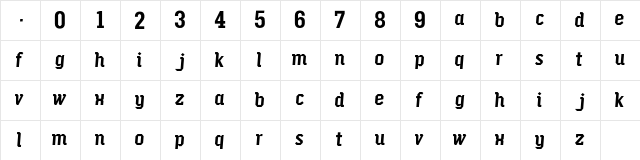
Puma World Cup 2010 Regular
Copyright: Based on the uniform lettering created by Puma for the 2010 World Cup. Fonted by Character from a vector alphabet provided by 'pirlofan'
Design Context for Puma World Cup 2010
Puma World Cup 2010 is a composed and adaptable typeface that performs quietly and consistently across a wide range of design contexts.